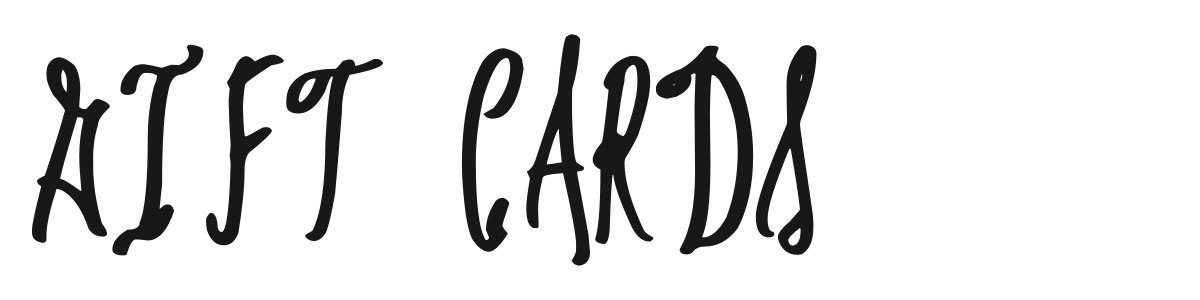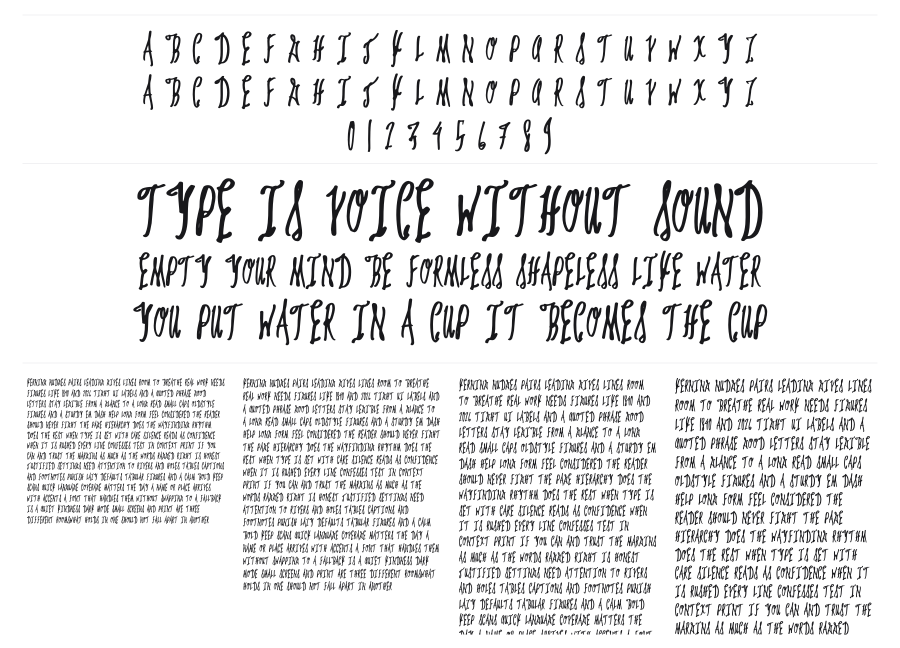
Gift Cards
Gift Cards is a tall, narrow brush-script with a spontaneous, hand-lettered quality and strong stroke contrast. Characters vary in width and pressure, giving the whole font an energetic, slightly unpredictable feel. It suits packaging, poster headlines, and anywhere a handmade touch matters.